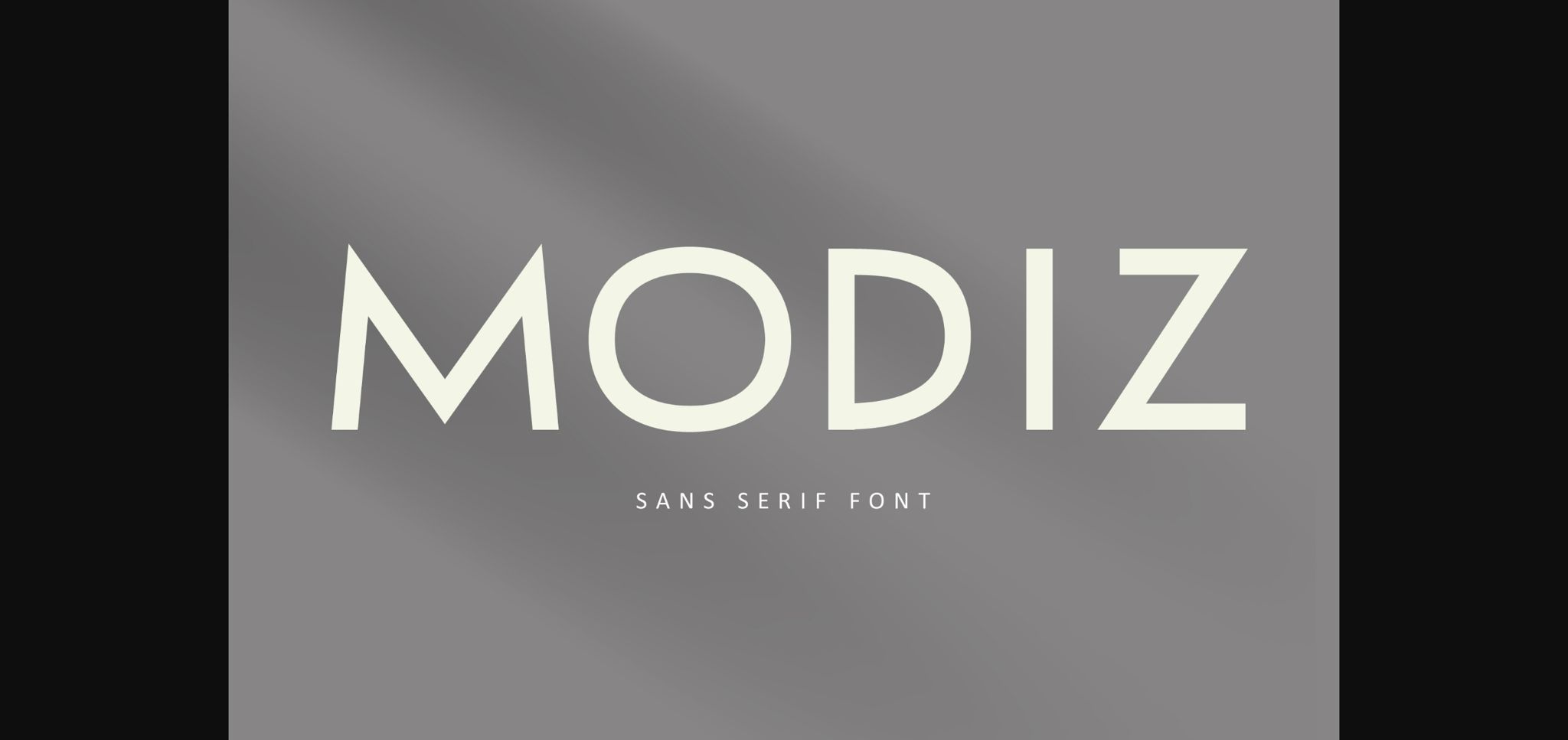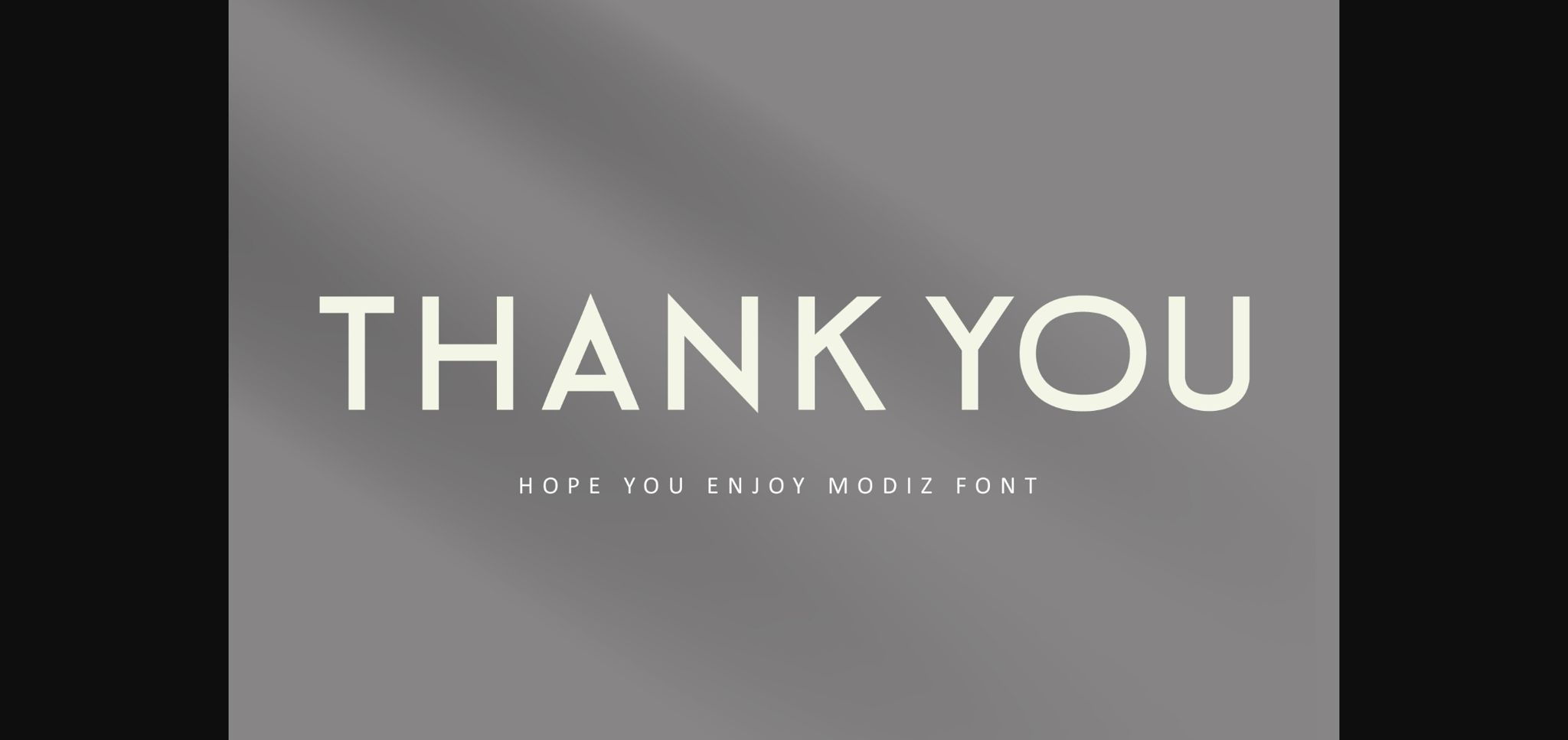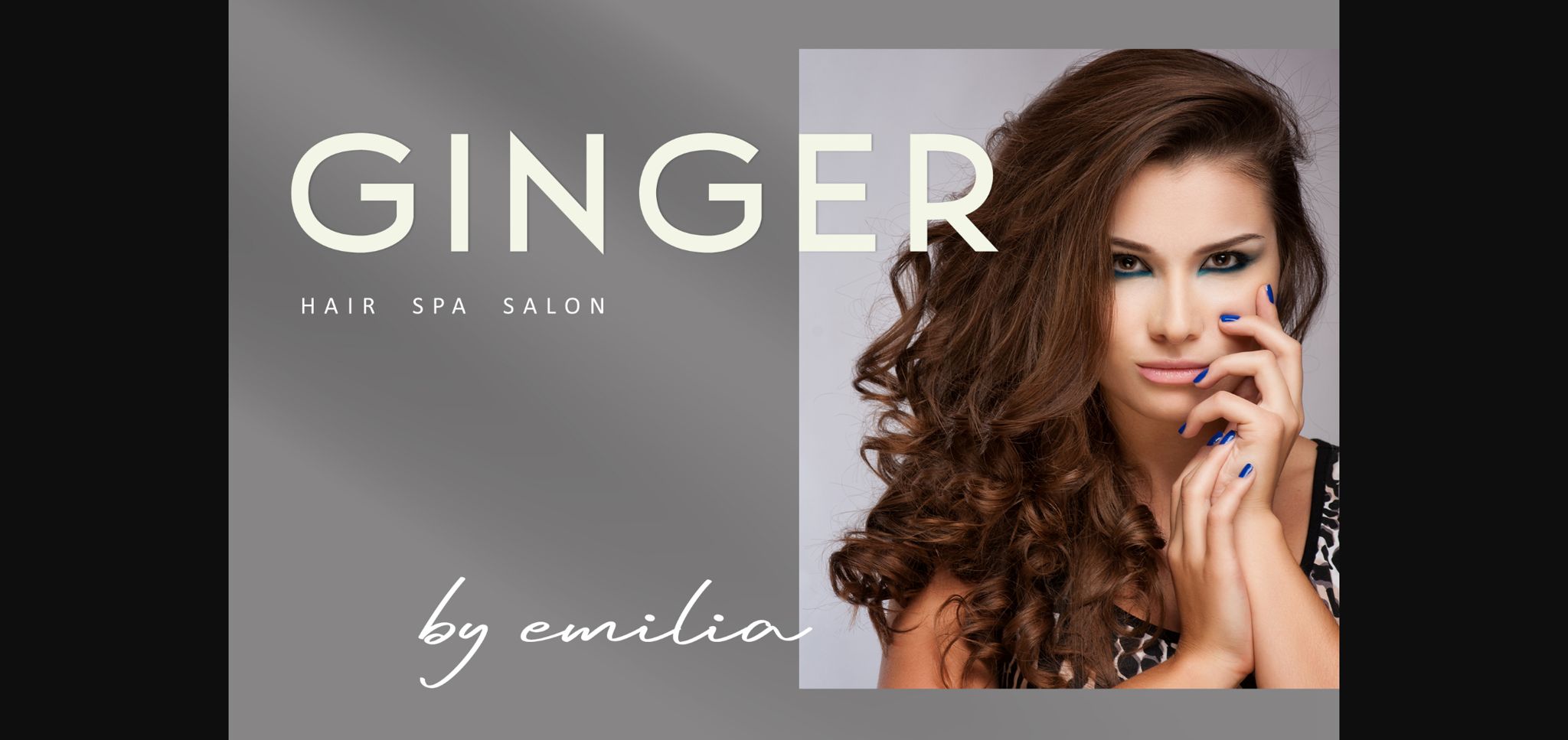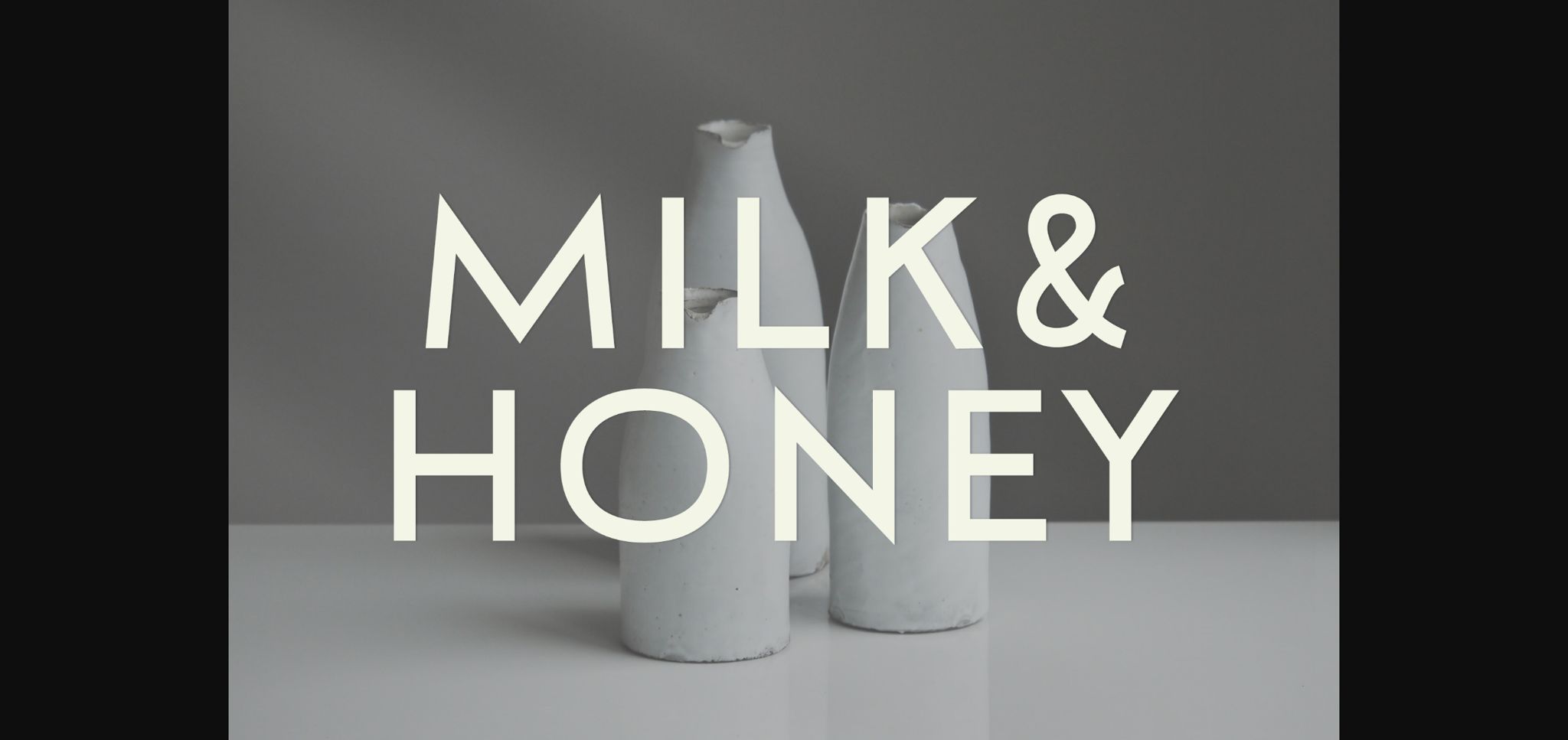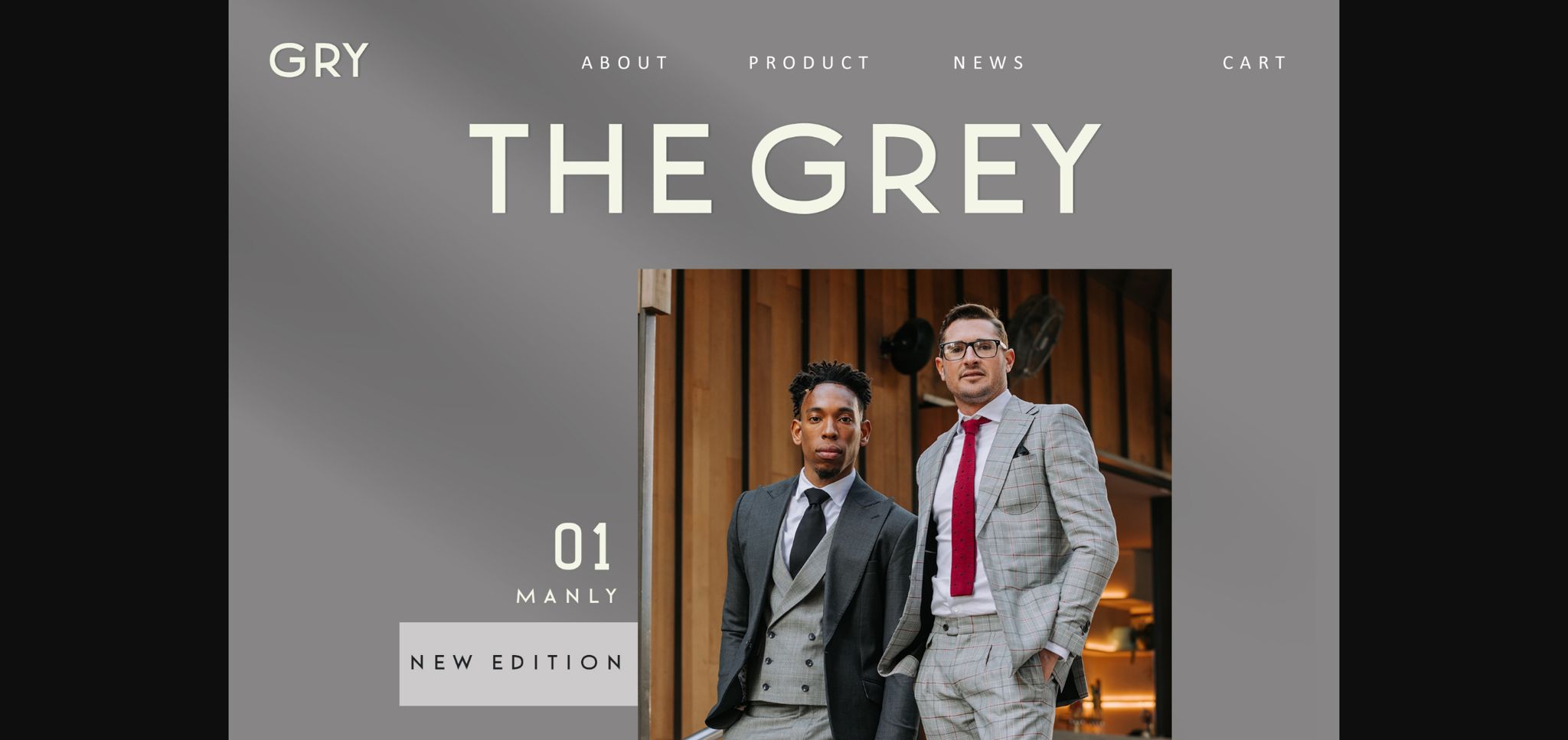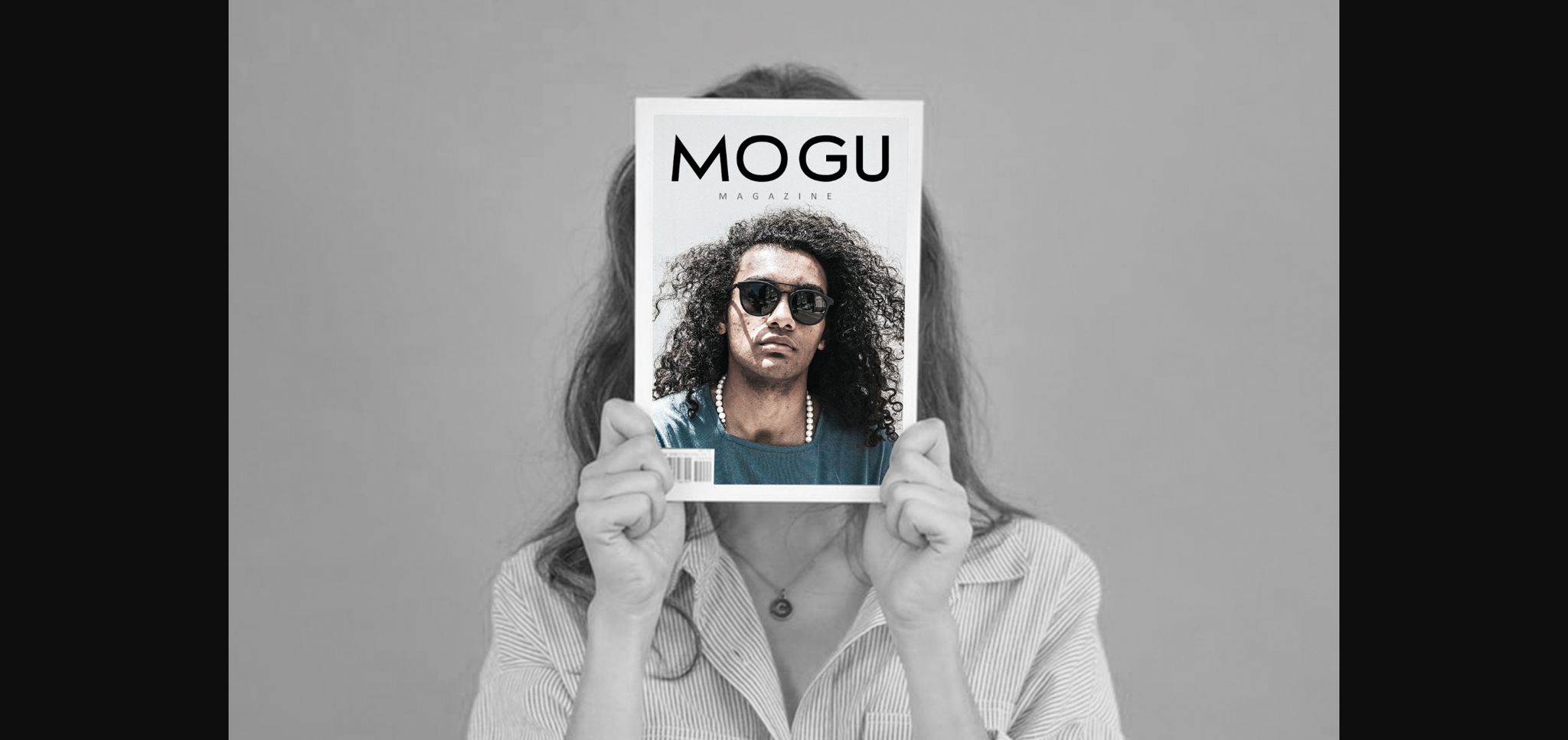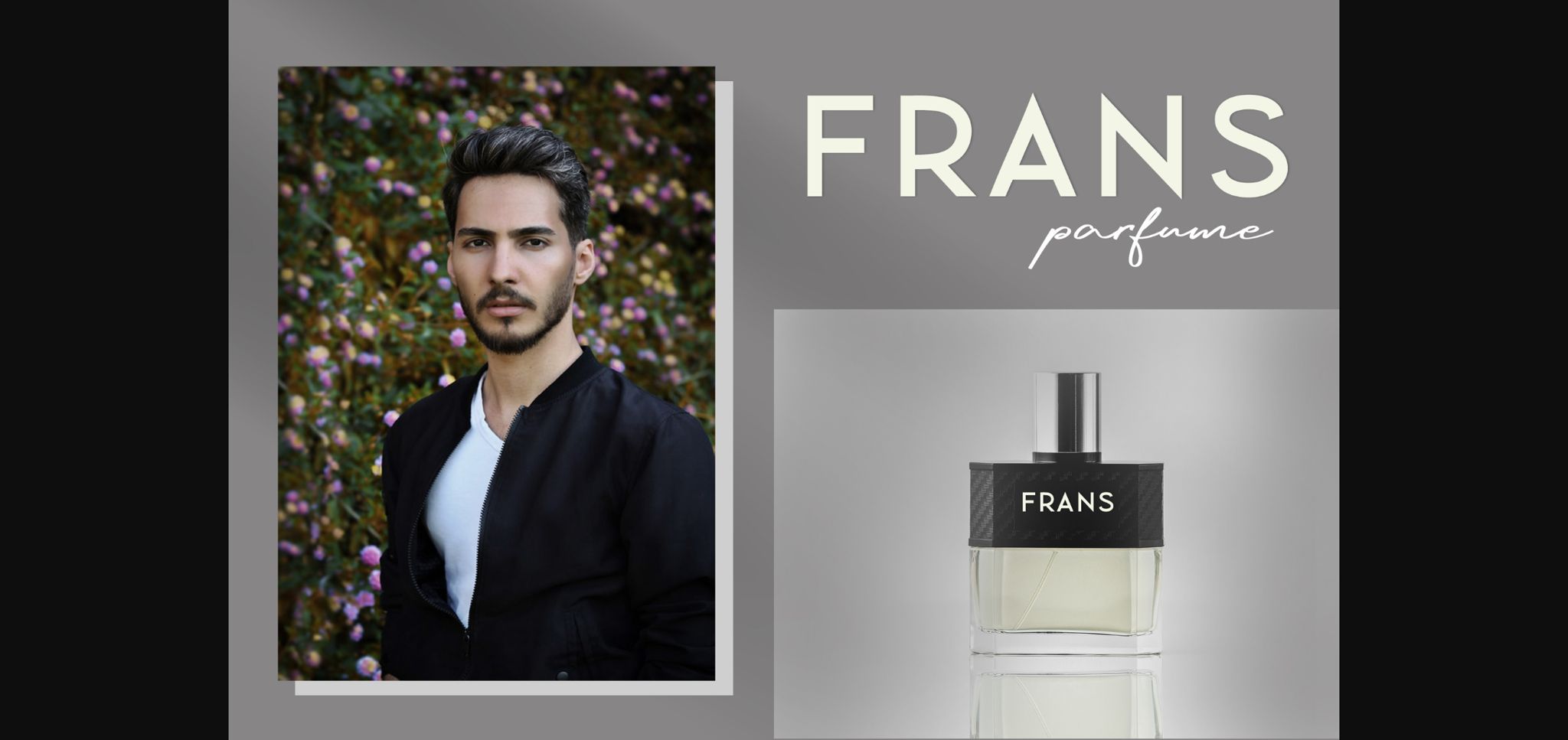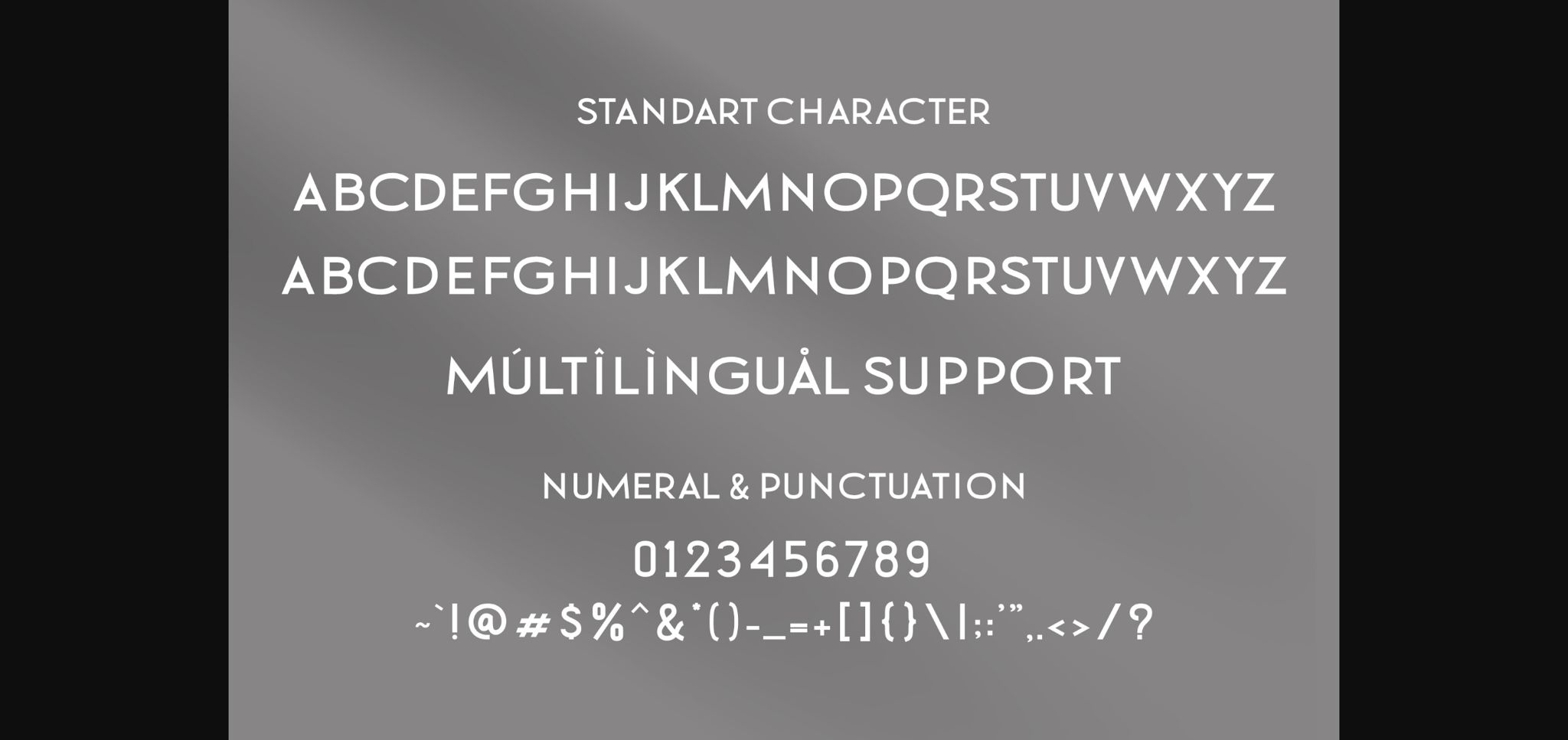
HomeSans Serif FontsModiz Font Sans Serif Fonts Modiz Font FacebookXPinterestWhatsApp 1 of 10 ... Modiz Font Poster 2... Modiz Font Poster 3... Modiz Font Poster 4... Modiz Font Poster 5... Modiz Font Poster 6... Modiz Font Poster 7... Modiz Font Poster 8... Modiz Font Poster 9... Modiz Font Poster 10... About Modiz Font Modiz is a simple and elegant sans serif font. This simple look will appeal to a wide range of crafty ideas, from letterheads and titles, to stationery. DOWNLOAD NOW People also explored Time out Font Mast Child Signature Font Dhelman Script Font Beautiful Birthday Font Hello Farmhouse Font Grunge Christmas Font Boardgamers Font Celtic Nova Font Lovlyn Font 516 0 TagsModizModiz Font Previous articleGaril FontNext articleFunwork Font LEAVE A REPLY Cancel reply Comment: Please enter your comment! Name:* Please enter your name here Email:* You have entered an incorrect email address! Please enter your email address here Website: Save my name, email, and website in this browser for the next time I comment. Personal Use Free Snaily Personal Use Free Read more about this font Fontmageddon Personal Use Free Read more about this font Legacy Personal Use Free Read more about this font Hommy You Personal Use Free Read more about this font BLOG Using Fonts in Digital Marketing: Tips to Strengthen Your Brand Identity In the realm of digital marketing, every visual element plays a crucial role in shaping a brand's identity, and fonts are no exception. The... Top 10 Handwritten Fonts That Elevate Your Designs The 10 Best Handwriting Fonts to Add Personality to Your Designs Modern Sans-Serif Fonts That Brands Love in 2025